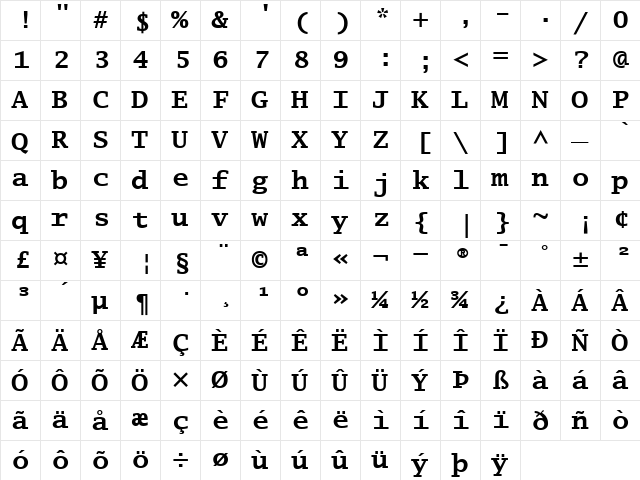
LucidaTypewriter Bold
Design Context for LucidaTypewriter Typeface
LucidaTypewriter uses fixed-width spacing throughout, giving it the structured, systematic character associated with coding environments and technical documentation. The heavy weight commands attention and anchors typographic hierarchies.
A natural fit for code editors, technical documentation, developer-focused branding, and terminal-inspired UI.
Pro Tip: Pair LucidaTypewriter with a proportional sans for UI contexts where code-style labels and regular body copy need to coexist.